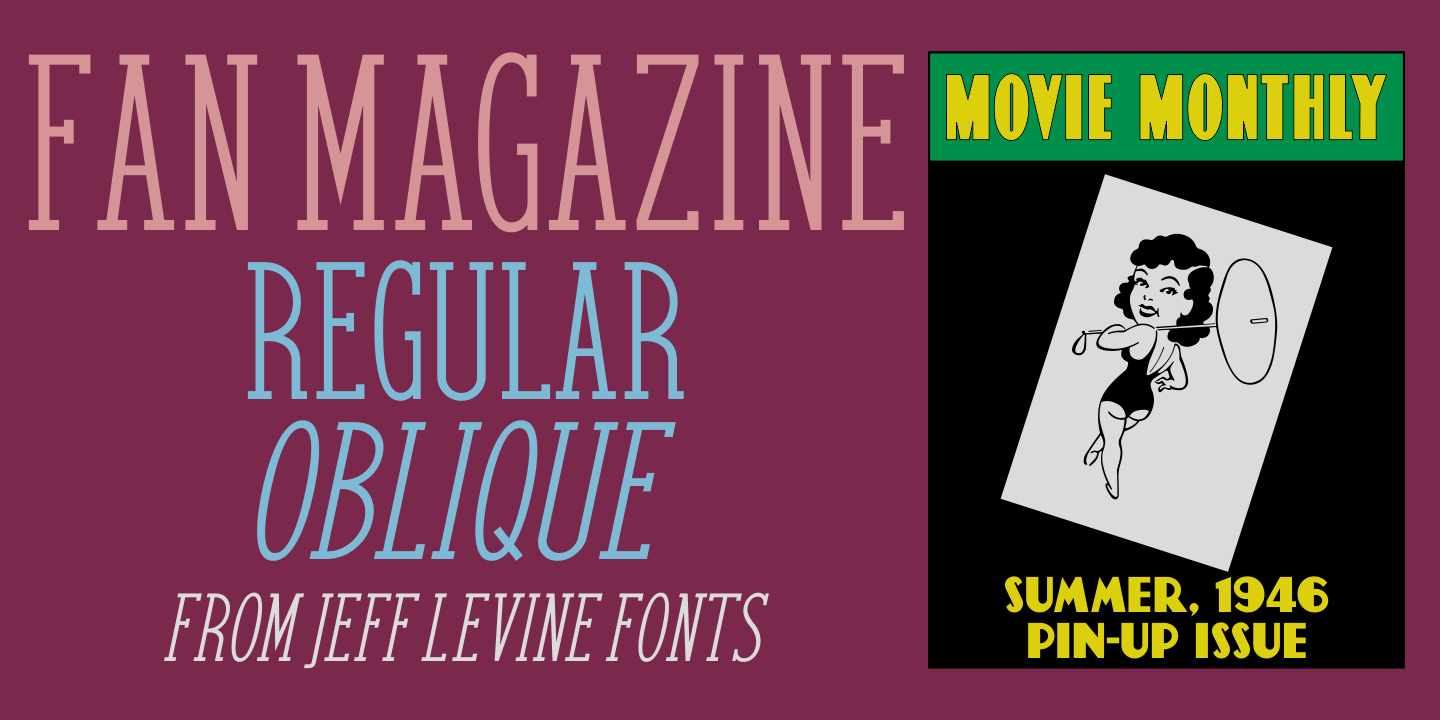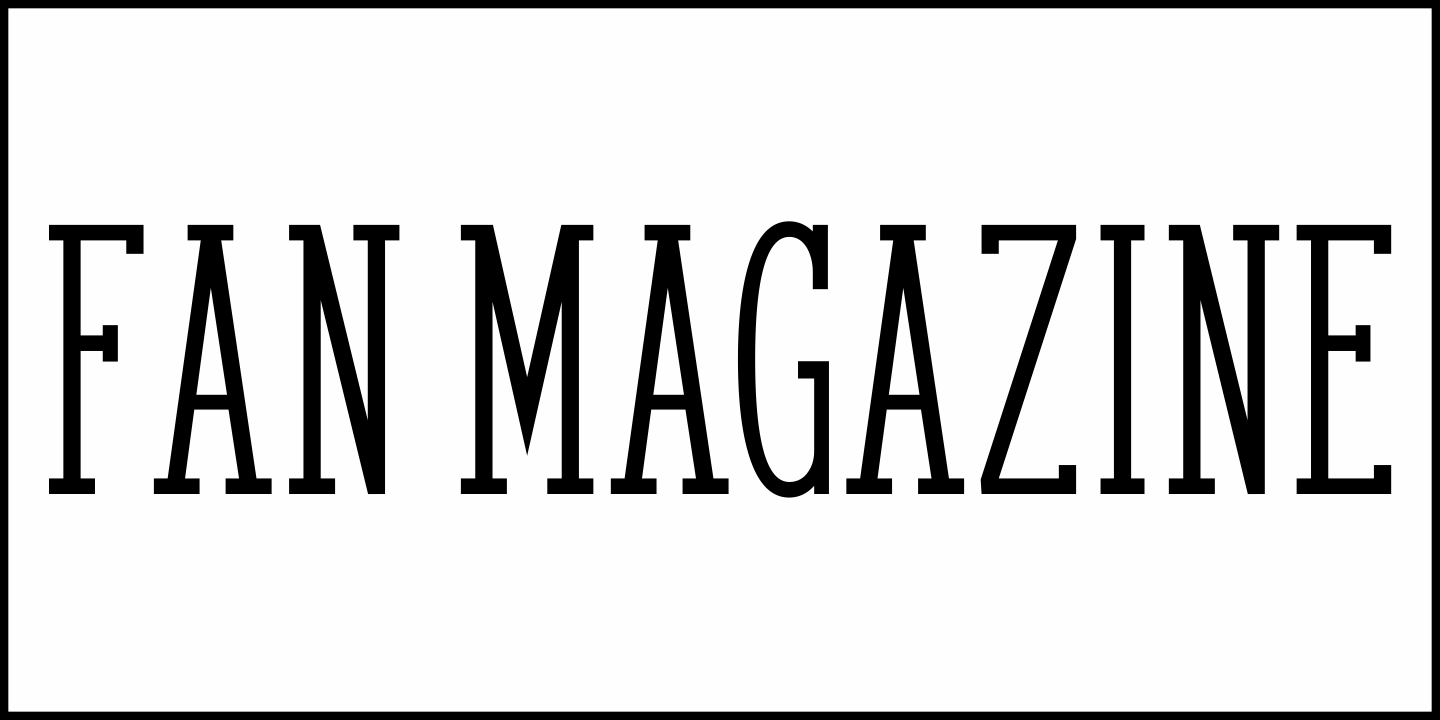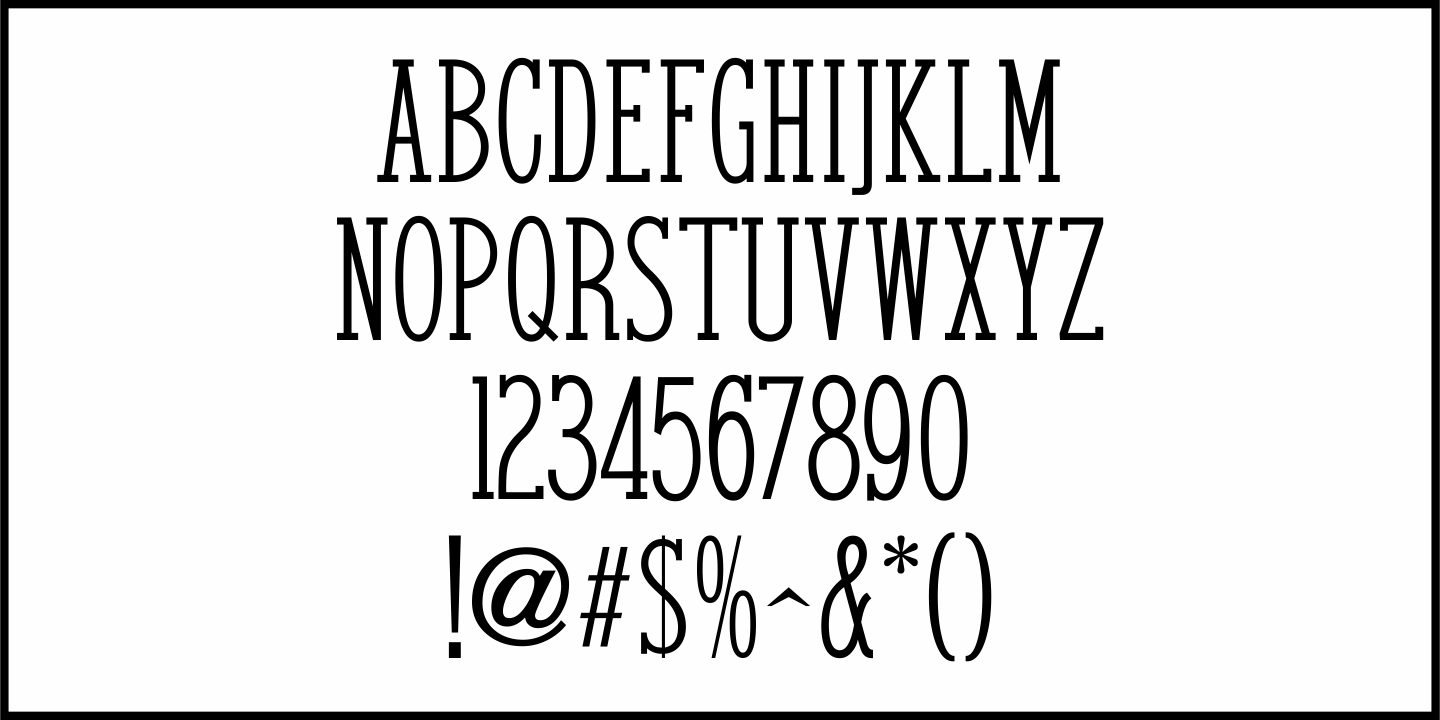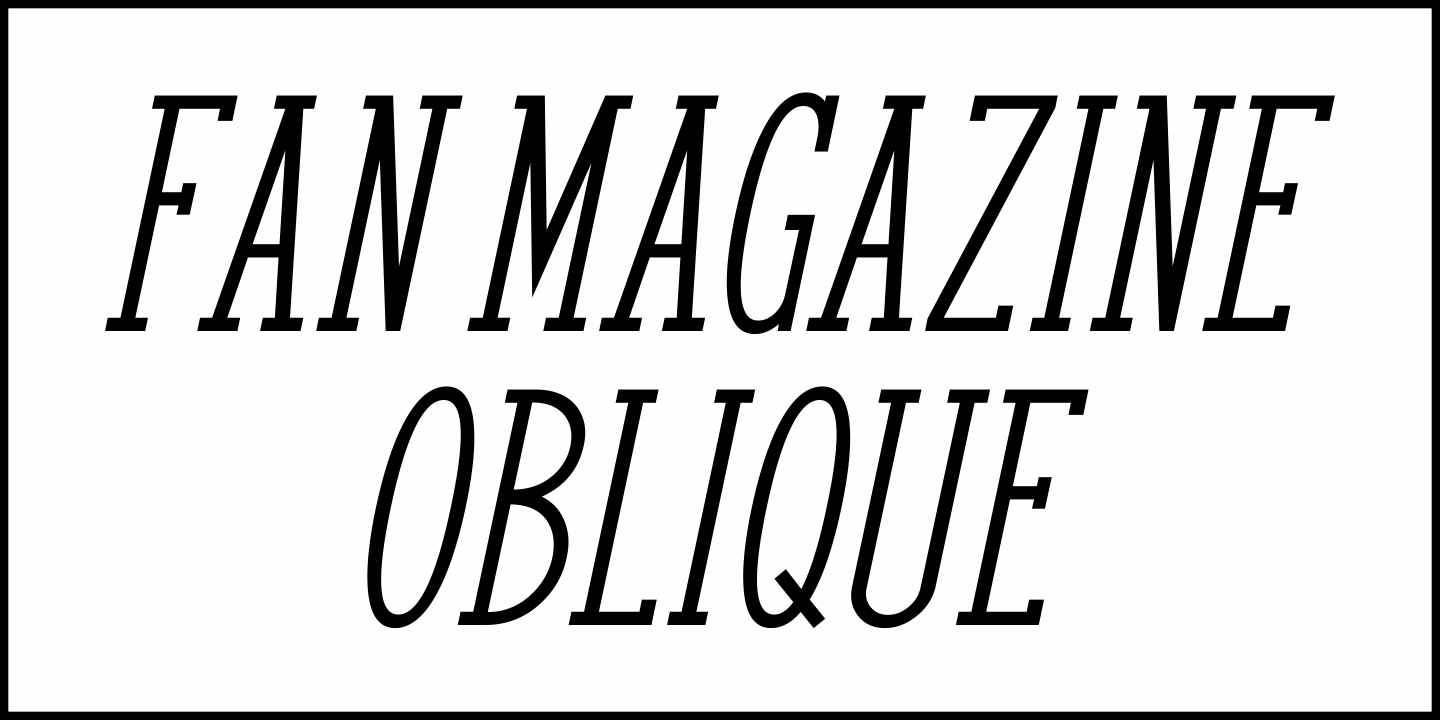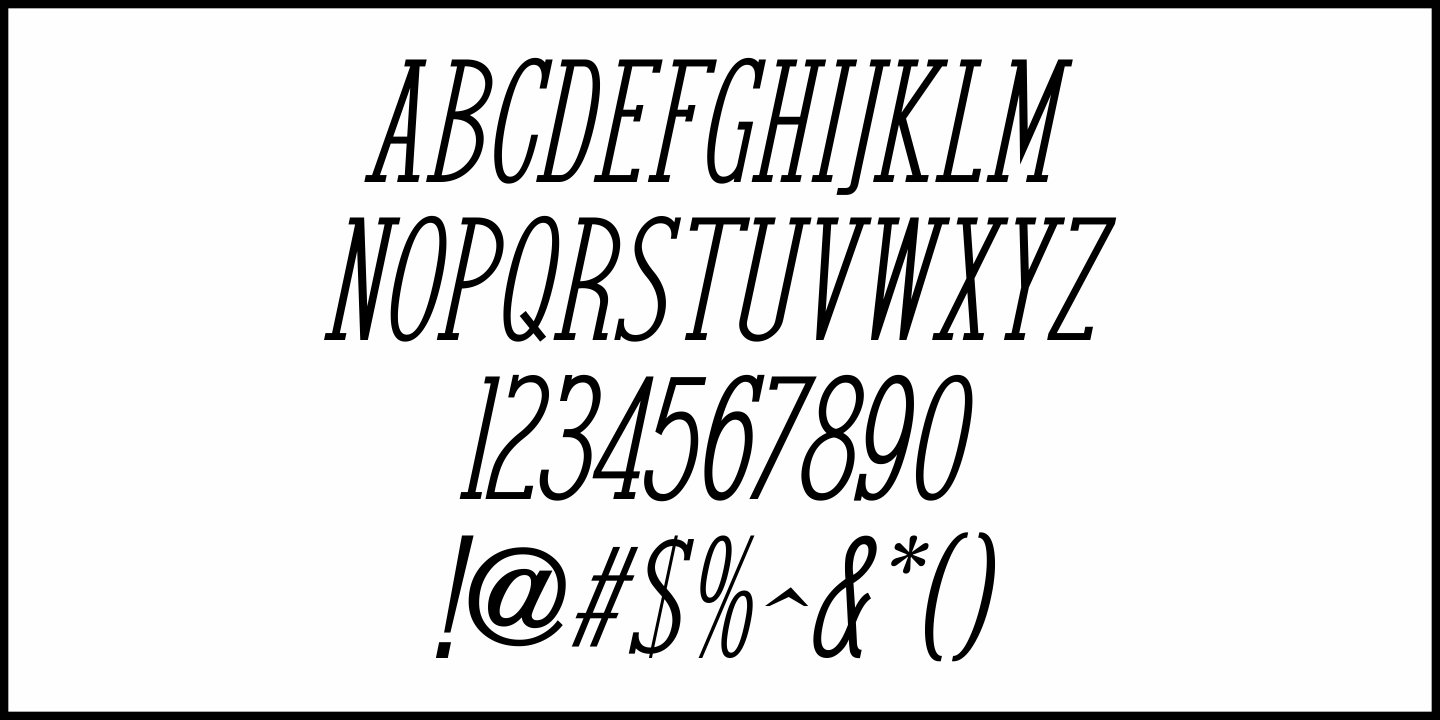
Fan Magazine
In the December, 1934 issue of Modern Screen magazine, a number of feature article headlines were hand lettered in a condensed slab serif with a relatively uniform stroke weight.
This is now available digitally as Fan Magazine JNL, in both regular and oblique versions.